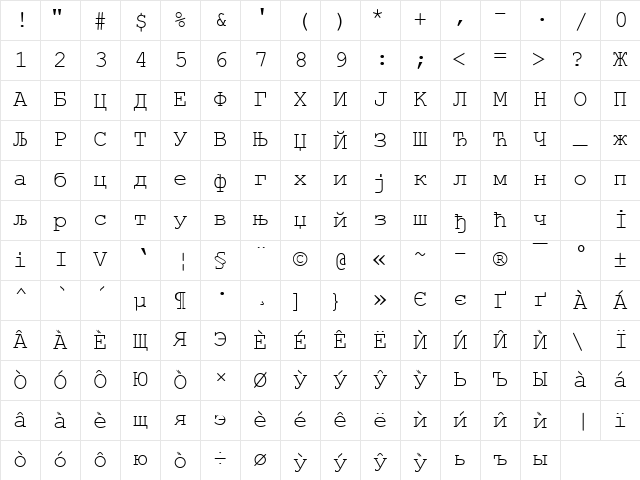
Cir Courier New Regular
Complete Cir Courier New Regular glyph index. Displaying only characters natively supported by Cir Courier New Regular font.
Design Context for Cir Courier New
Cir Courier New uses fixed-width spacing throughout, giving it the structured, systematic character associated with coding environments and technical documentation.
Pro Tip: Use Cir Courier New with slightly increased line-height for extended reading - fixed-width spacing can feel dense in longer passages without extra breathing room.